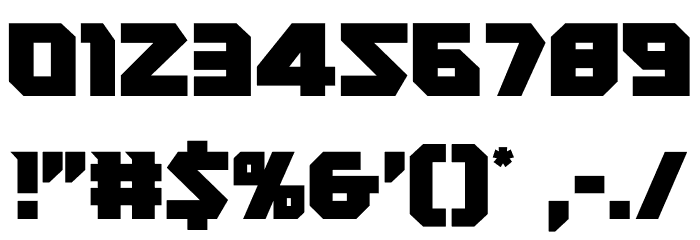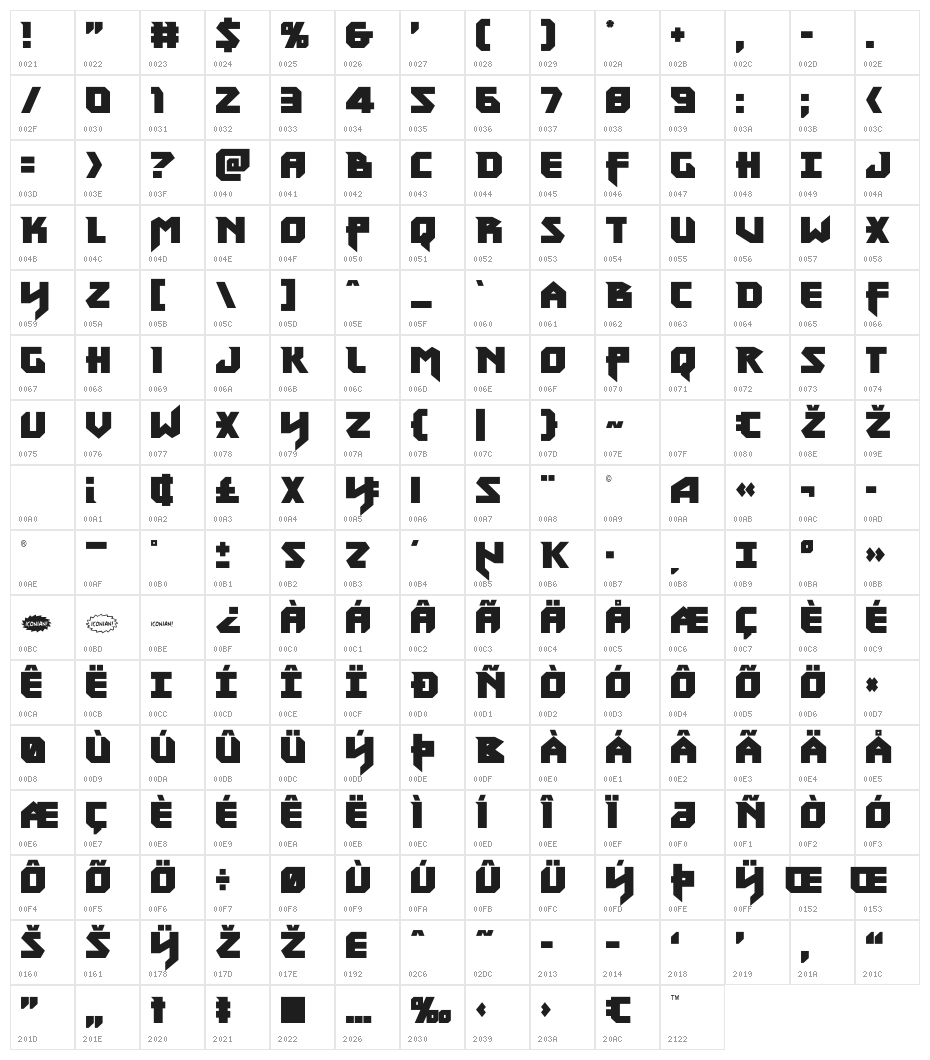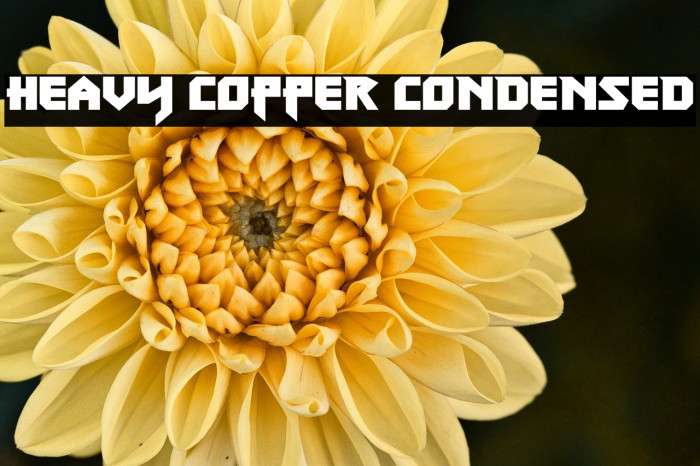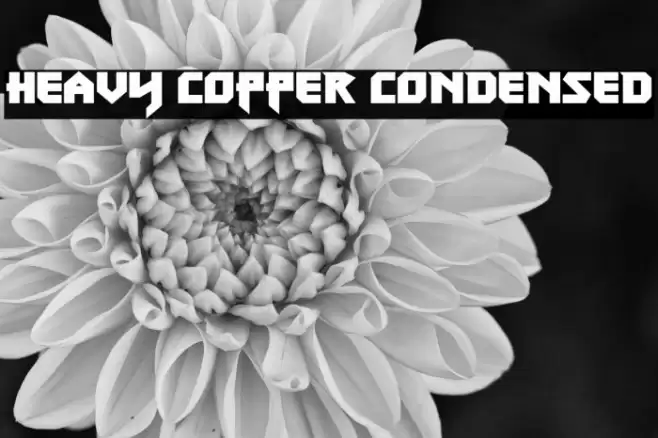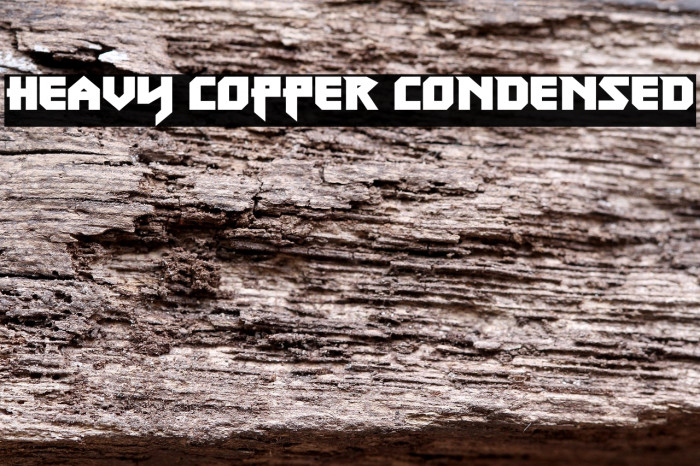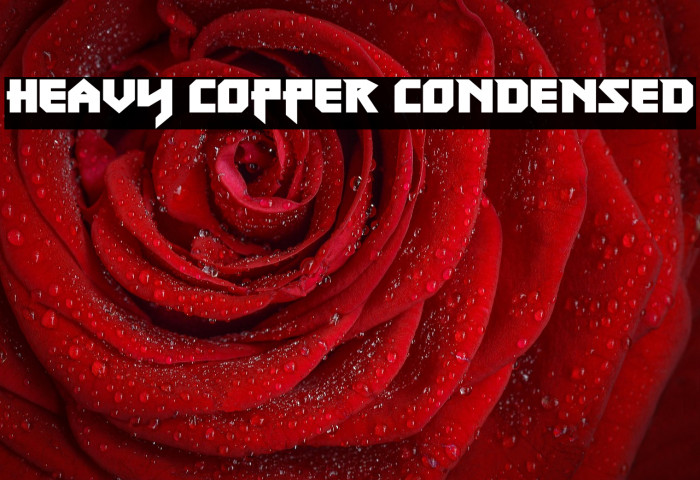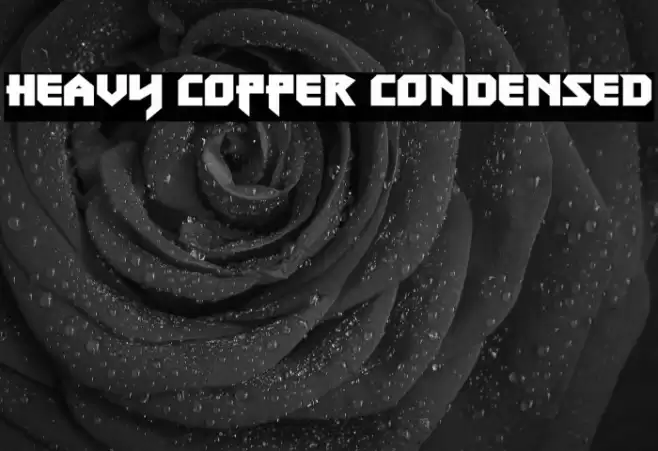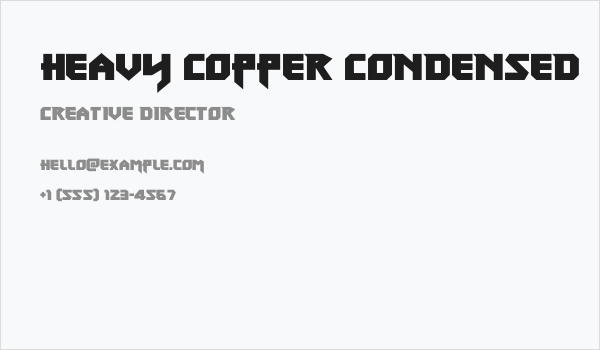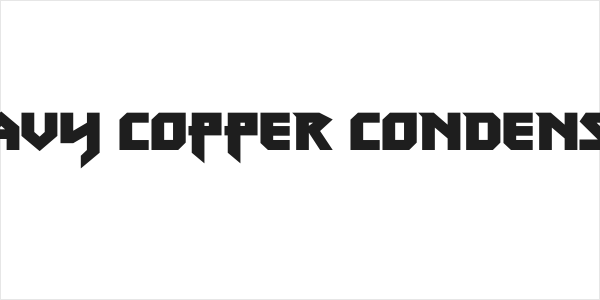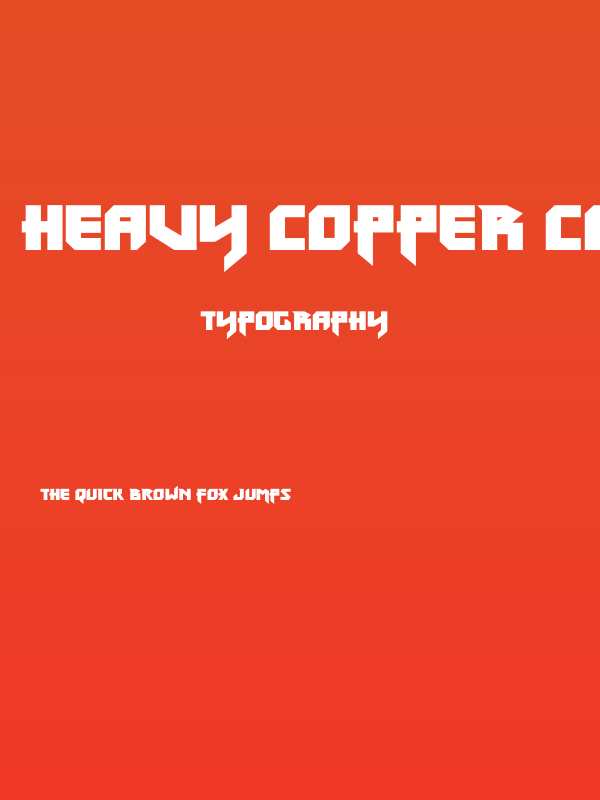
Heavy Copper Condensed Font
Heavy Copper Condensed Description
This font features a bold, geometric design with sharp angles and a condensed structure. The characters are heavily stylized, with a strong emphasis on straight lines and pointed edges, giving it a futuristic and aggressive appearance. The uppercase letters are particularly striking, with a uniform height and width that creates a cohesive look. The numerals and special characters maintain the same bold and angular style, ensuring consistency across all glyphs. This font is ideal for making a strong visual impact, with its distinctive and memorable design.
| Proposed Projects | Ideal for video game titles, movie posters, branding for tech companies, or any project needing a futuristic and bold aesthetic. |